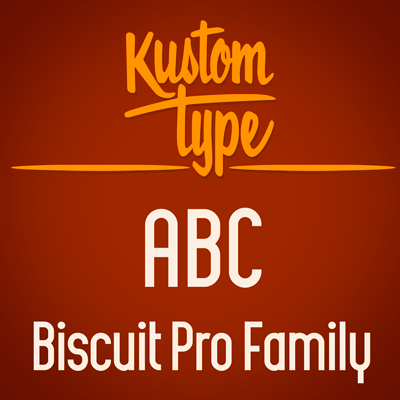
Thank you for the donations and keeping me alive! About this font family Biscuit is a rounded unique typeface, clearly and easy readable with upper- and lowercase. Perfectly applicable for big or bold tekst pages. This font family has an excellent legibility - both in print and on the web - and an optimized kerning. Biscuit is intentionally designed to be used as a display typeface in publications, packaging and al of your artwork and design. It’s warm and cosy character suits extraordinary well for modern or vintage typography and corporate design. ******************* NOTE: THIS IS A DEMO-FONT FOR PERSONAL USE ONLY! If you are going to use it commercially, then a donation is required. You can also buy the full version, which comes a family of the font, with perfect kerning, embedding rights, all glyphs and extras. You CANNOT use this font in games, apps, books,software or distribute it see the full liscence on my website. Have respect for the Type Designers work, so keep the Type Designer alive! ******************* Purchase the full commercially licensed version at: https://www.myfonts.com/fonts/kustomtype/biscuit-pro/ ******************* For questions or proposals, feel very free to mail info@kustomtype.com Like my fonts on Facebook: http://www.facebook.com/kustomtype More... |